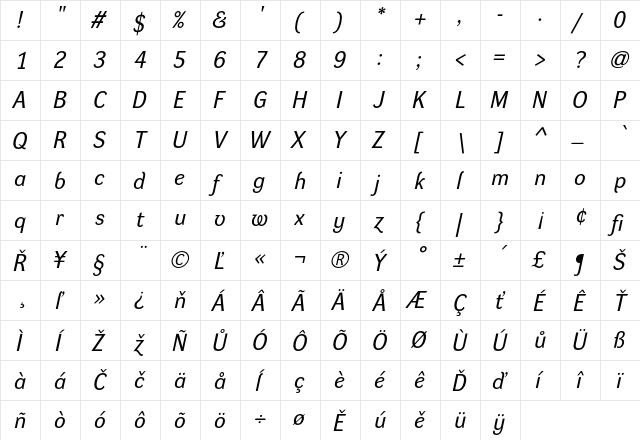
Dynamo R Regular
Design Context for Dynamo R Typeface
Dynamo R takes a measured approach to typography — its balanced proportions and neutral character make it a reliable workhorse for both digital and print work.
Pro Tip: Pair Dynamo R with a font of contrasting weight or personality to build a more expressive typographic hierarchy.